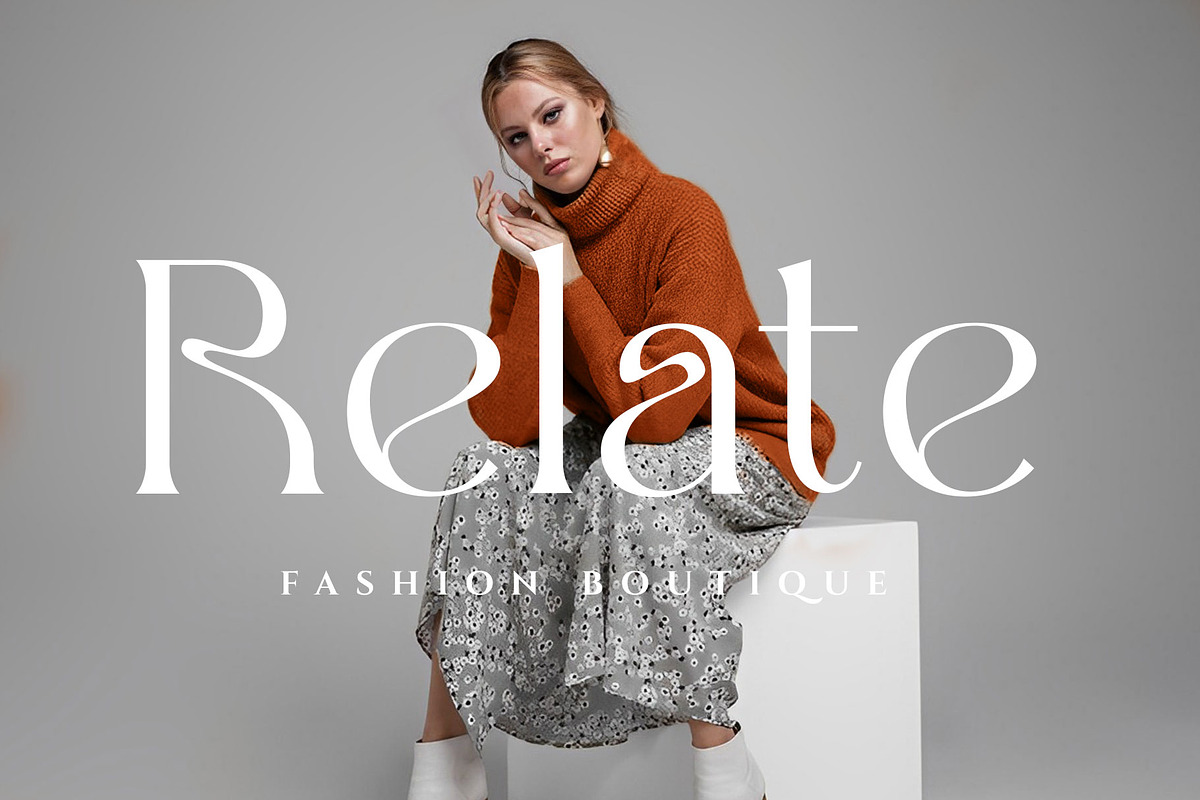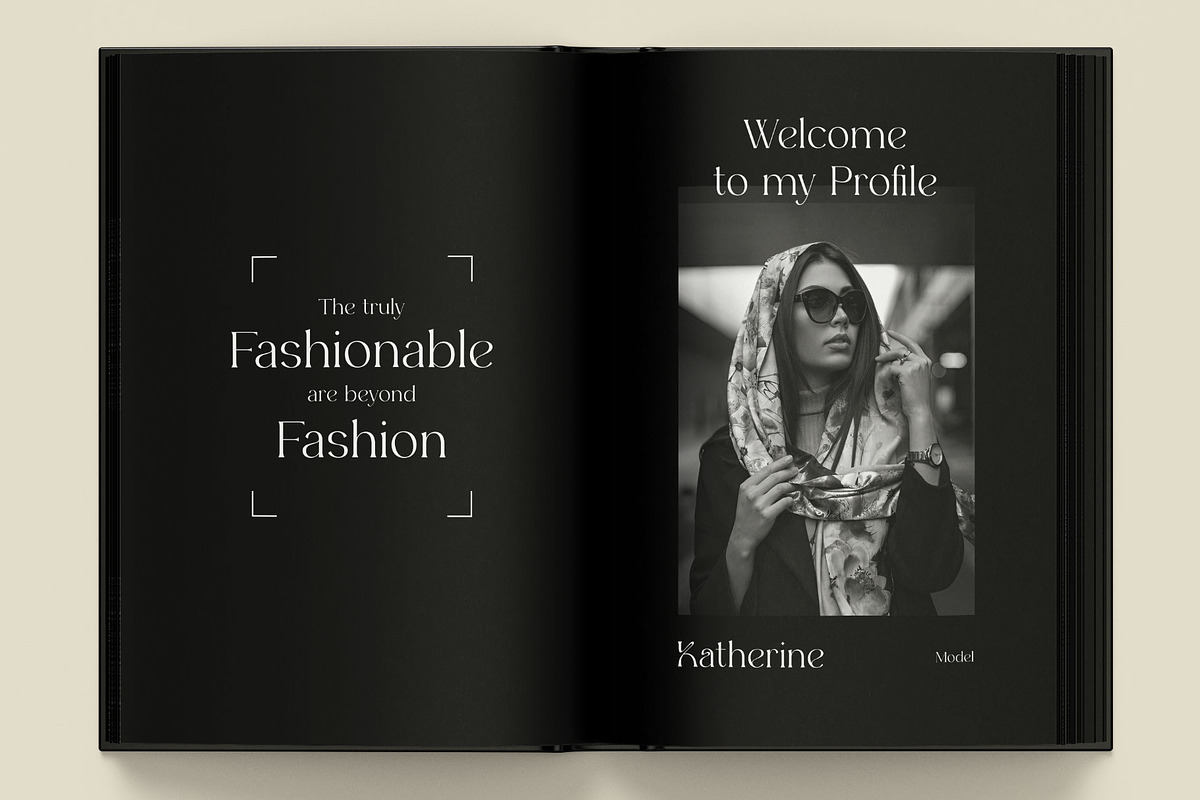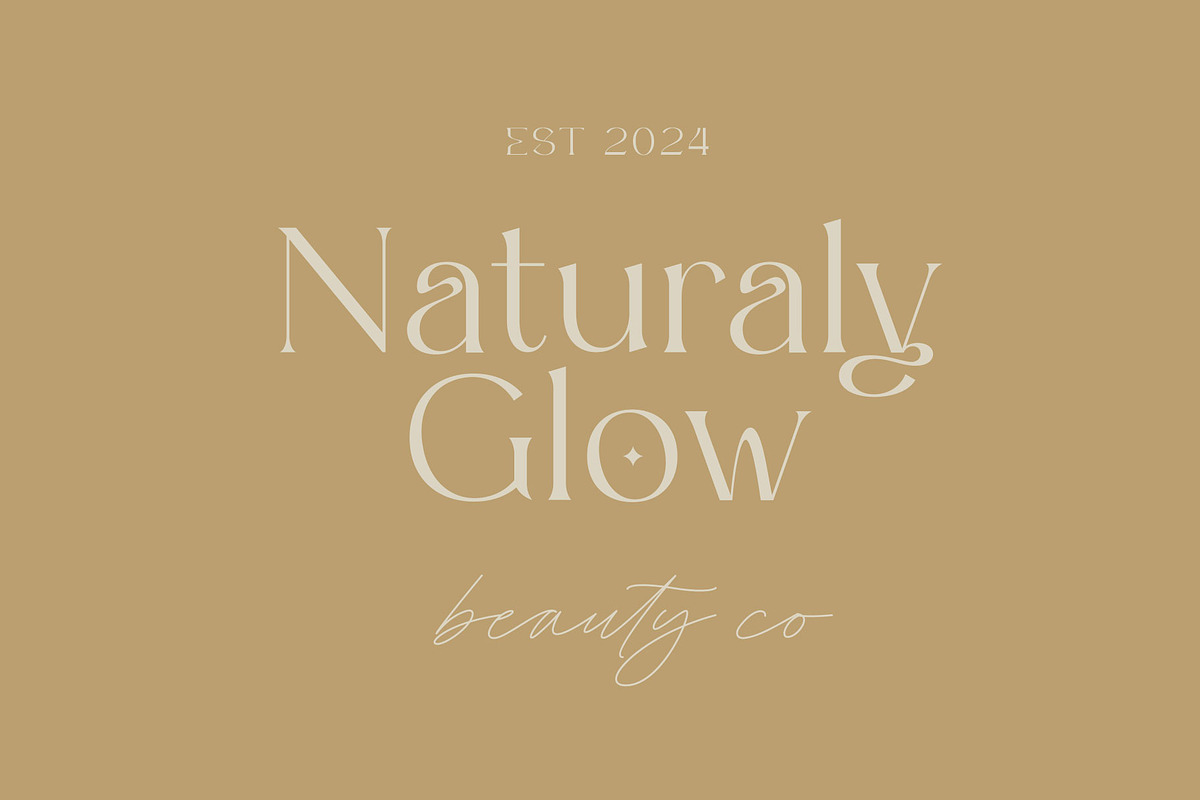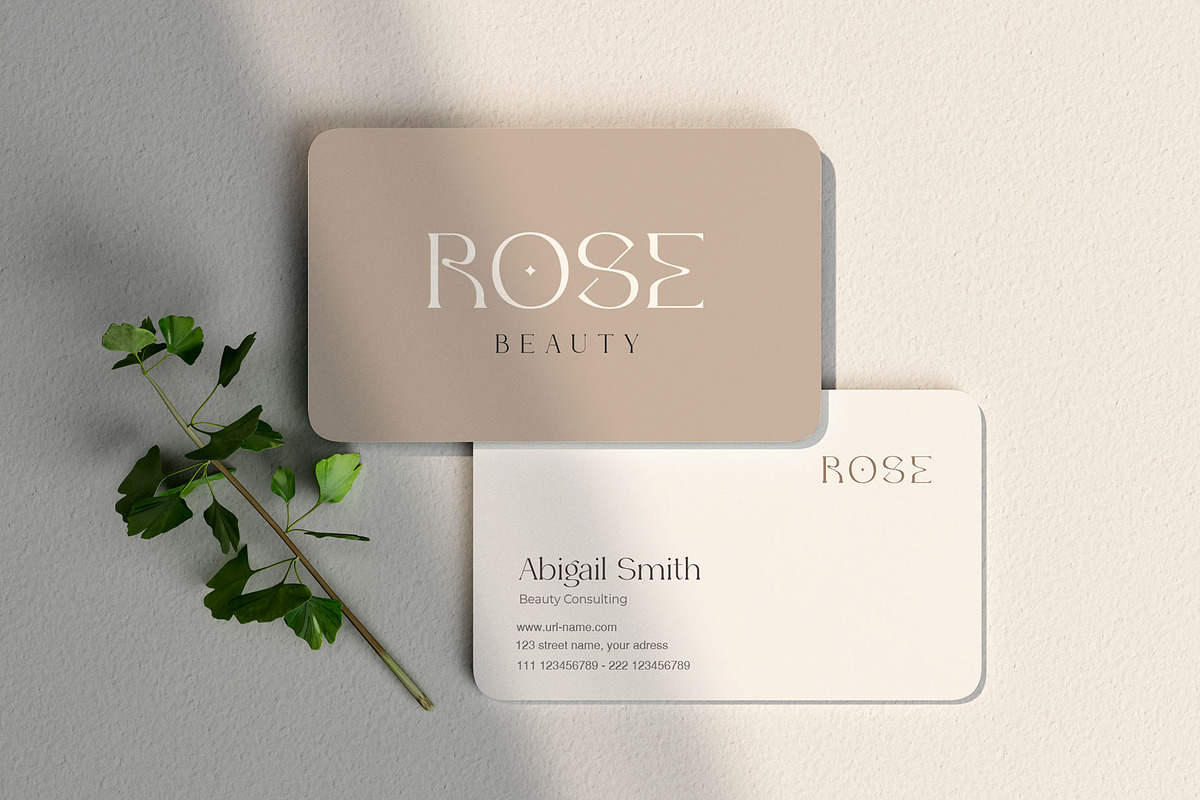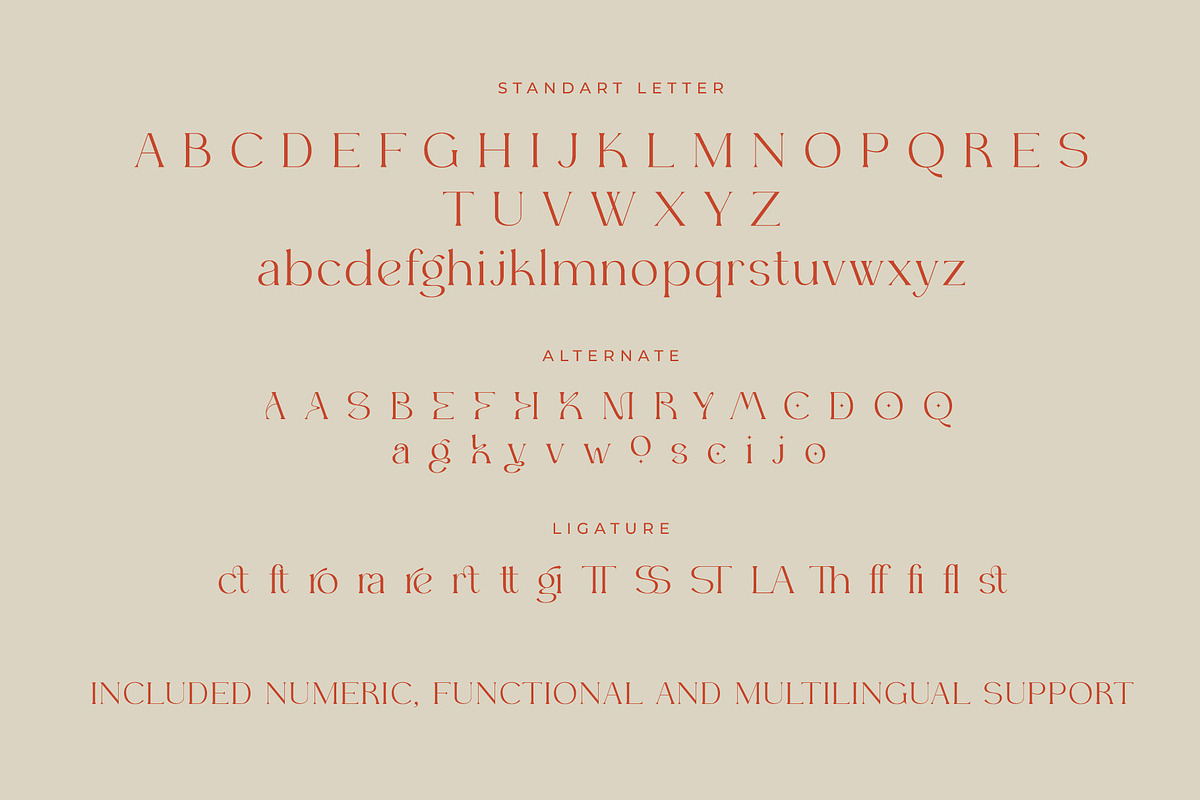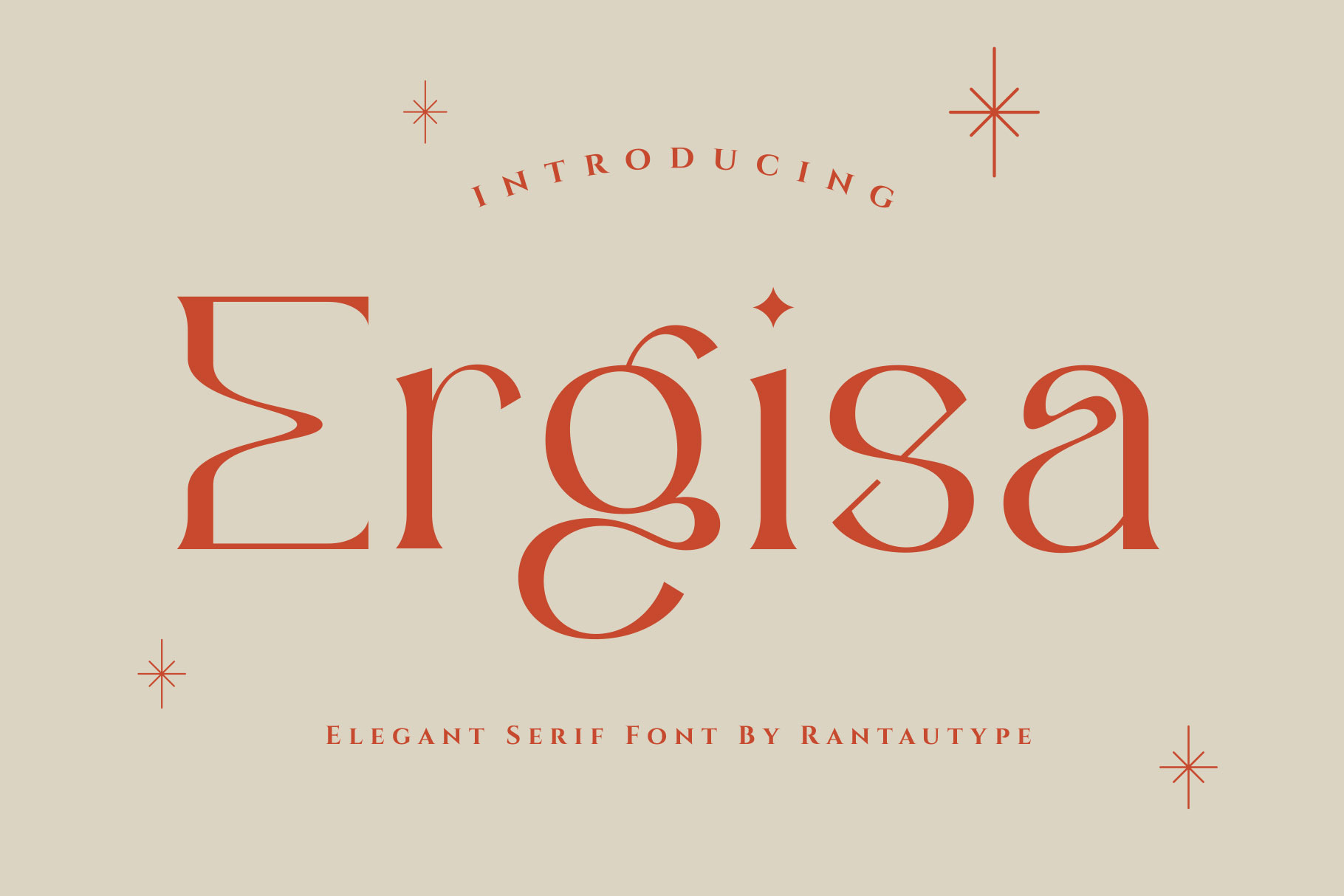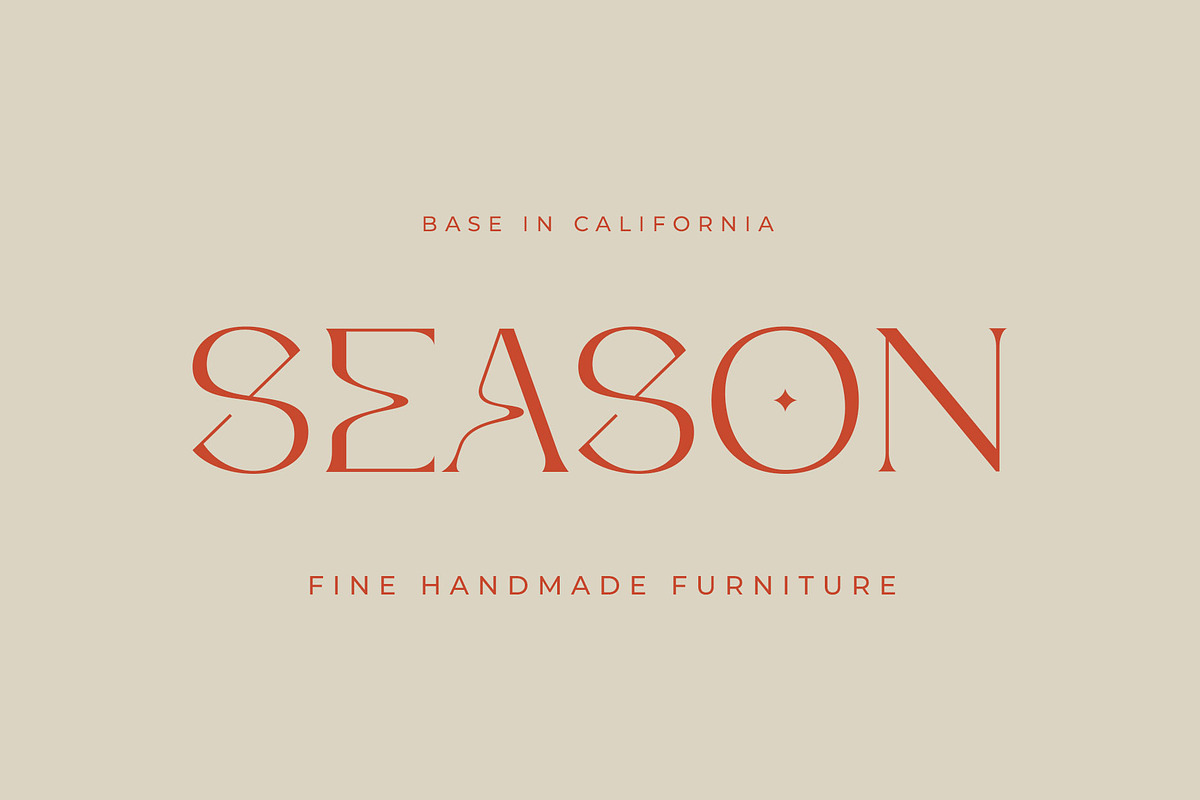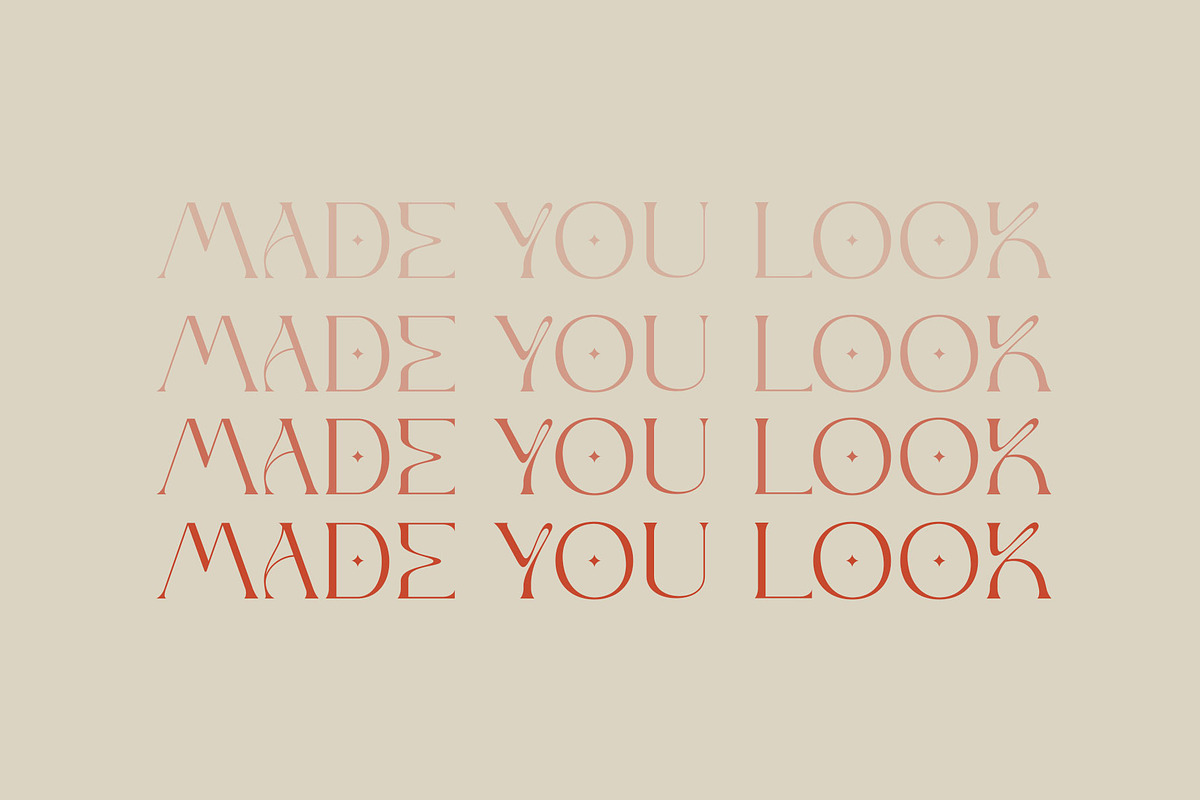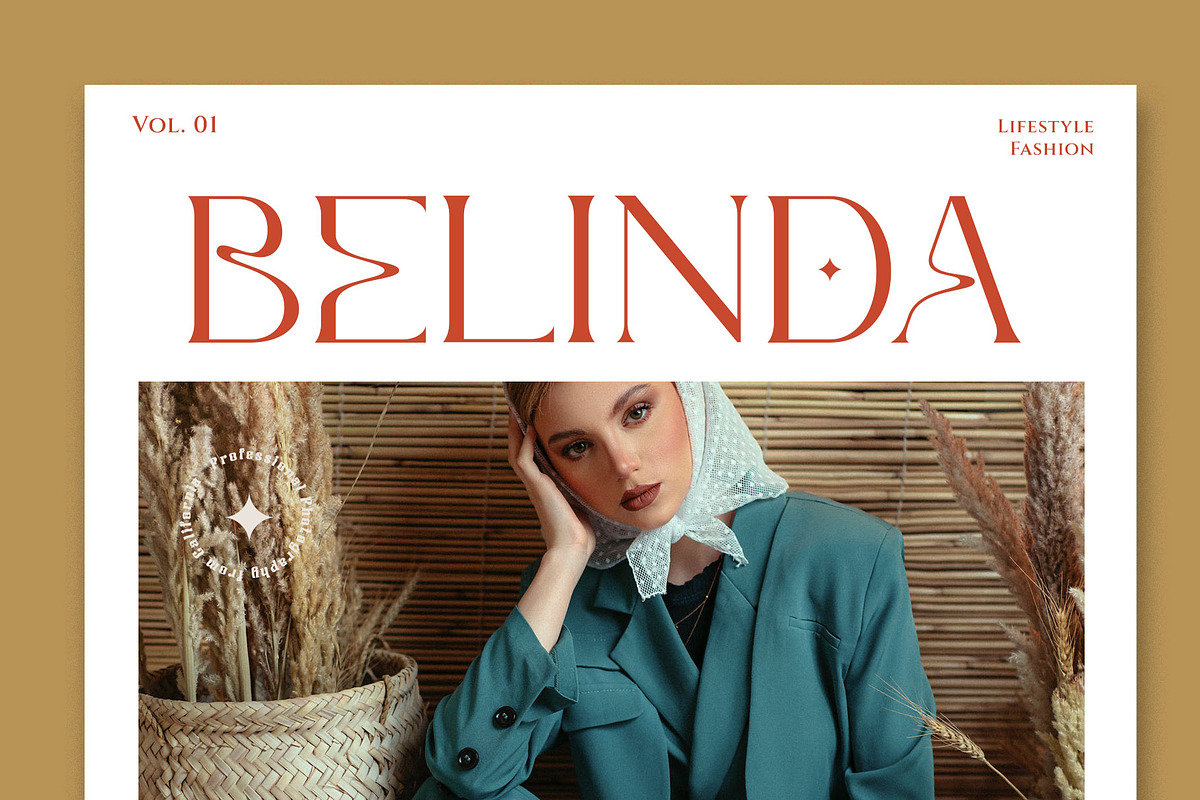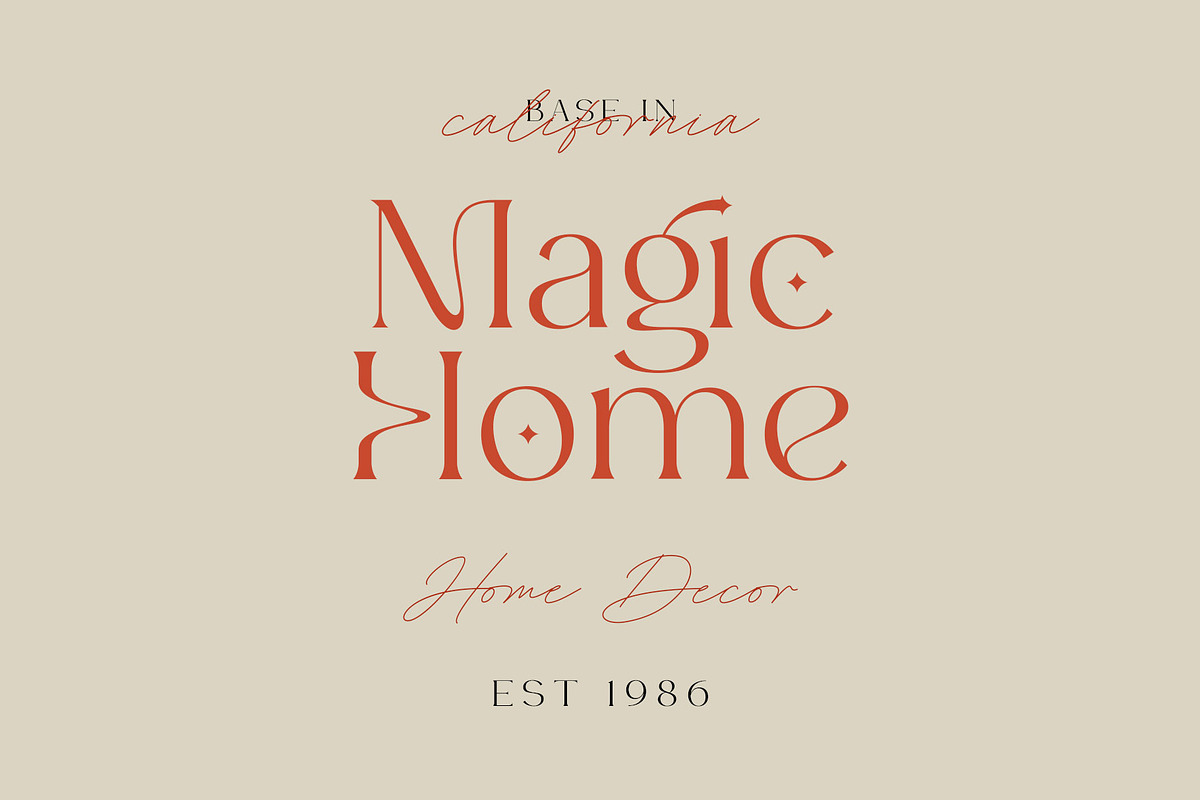
Ergisa Elegant Serif Font
Experience elegancy in a visual form for your design with the Ergisa font. Inspired by elegant brand and beautiful concept, targeting a luxury-forward mentality with subtle curves to make it elegant and fashionable. We love how alternate it look elegant and minimalist. Ergisa come with alternate, ligature and already support multingual character.
Ergisa is a beautiful choice for any creative endeavor, chic, lifestyle design such as logos, title, watermark on photography, cover, branding, display and magazine, wedding event, corporate brand, quotes, album cover, business card, business project and many other design project. Ergisa here to elevate you workl!!!
- 2 Font ((reguler and italic)
- Standar character A-Z and a-z
- Ligature and alternate
- Multilinggual Character support
- Opentype Feature
Langguage support:
Afrikaans, Albanian, Asu, Basque, Bemba, Bena, Breton, Chiga, Cornish, Dutch, English, Estonian, Filipino, Finnish, Friulian, Galician, Gusii, Indonesian, Irish, Italian, Kabuverdianu, Kalenjin, Kinyarwanda, Luo, Luxembourgish, Luyia, Machame, Makhuwa-Meetto, Makonde, Malagasy, Manx, Morisyen, North, Ndebele, Nyankole, Oromo, Portuguese, Quechua, Romansh, Rombo, Rundi, Rwa, Samburu, Sango, Sangu, Scottish, Gaelic, Sena, Shambala, Shona, Soga, Somali, Spanish, Swahili, Swedish, Swiss, German, Taita, TesoUzbek (Latin), Volapük, Vunjo, Zulu